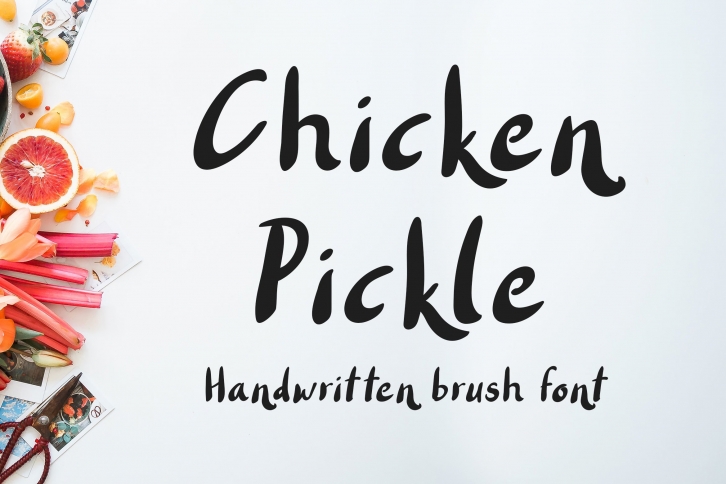
Chicken Pickle is a gorgeous font that was realeased on July 1, 2020. The font can be used in many style contexts and design environments. Perfect for invitations, magazines, websites, logos, and more! It was designed by Dasagani and the file size is 18.69 MB. Thanks for checking out this font!